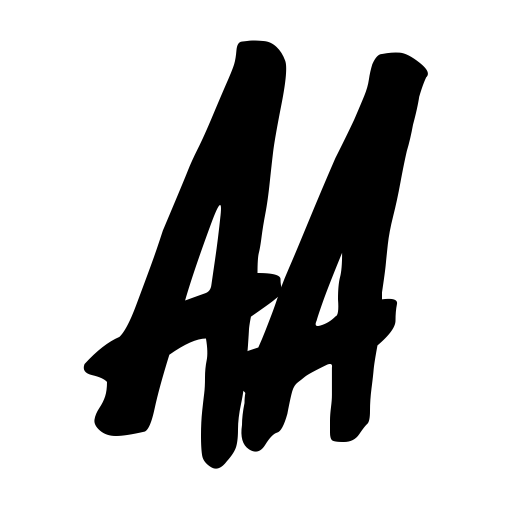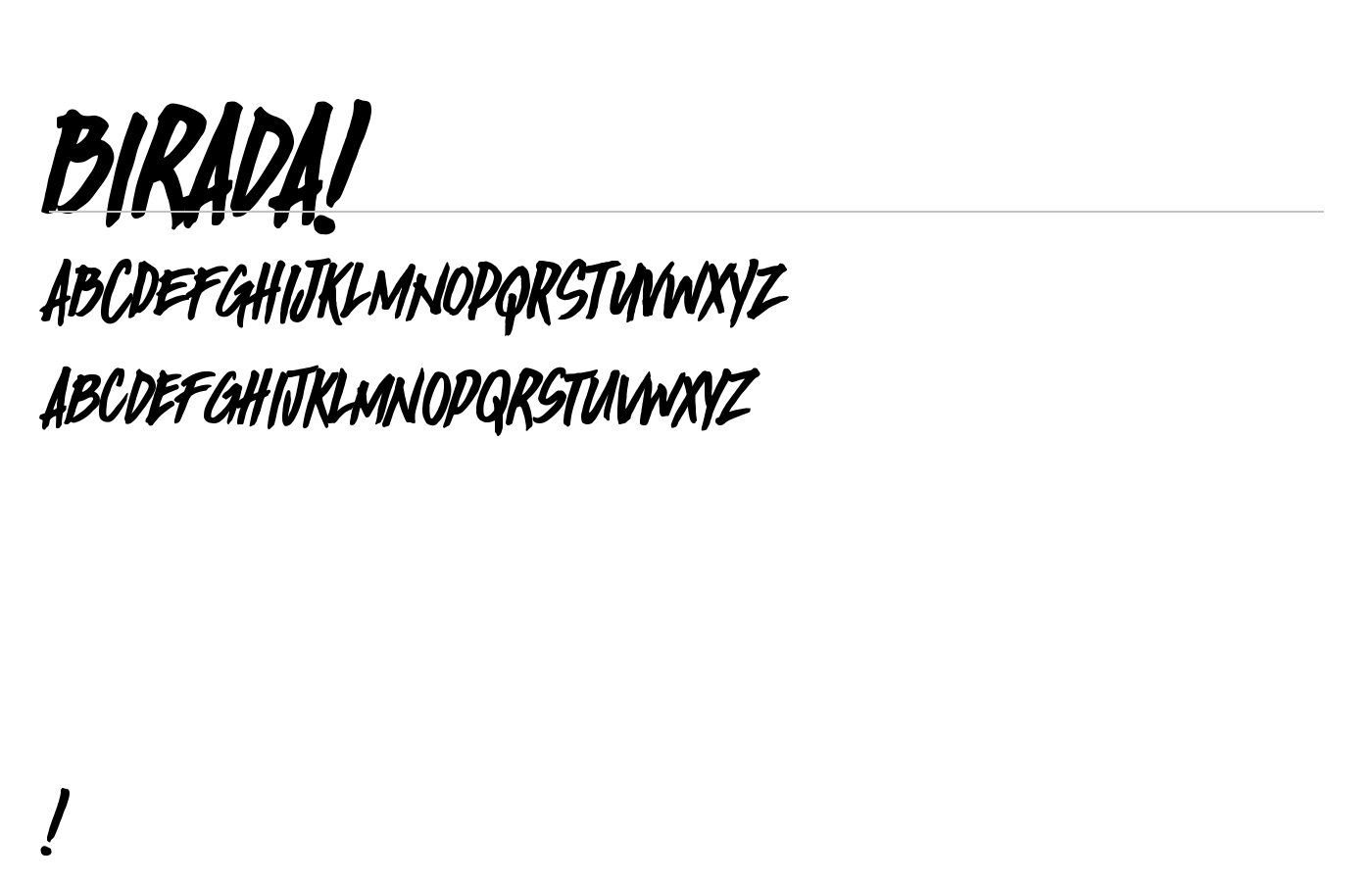
Birada! Font is a bold, energetic brush script that captures a lively, hand-painted feel with its rough, dynamic strokes and slightly condensed letterforms. Its casual, expressive style works perfectly for creative branding, posters, and headlines where a sense of spontaneity and personality is desired. This font brings a youthful, artistic vibe to any project, making it ideal for designs looking to stand out with an informal yet impactful voice.
Birada! Font
About Birada! Font